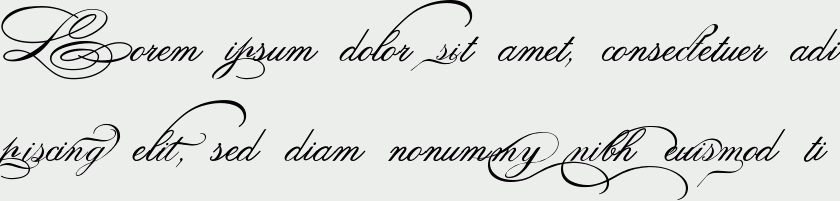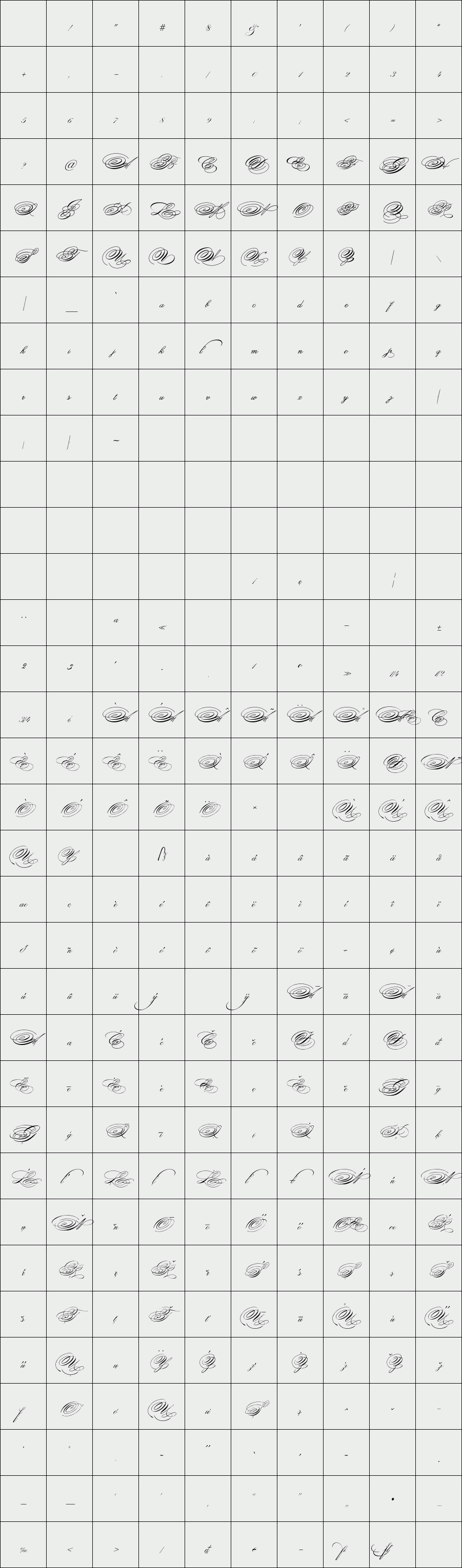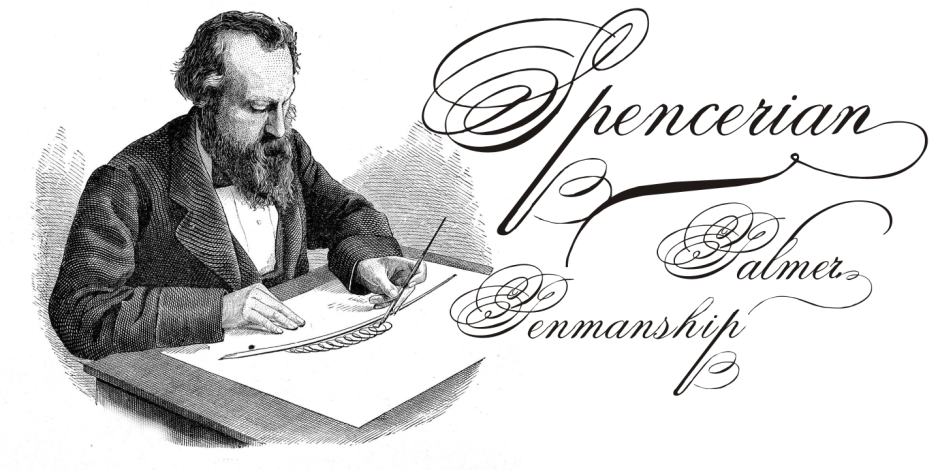
Spencerian Palmer Penmanship
/ Spencerian Palmer Penmanship PRO
The concepts of Spencerian Palmer Penmanship PRO come from the Palmer’s Penmanship guides and calligraphy manuals from XIX century.
This enhanced OpenType version has complete set in Latin alphabet with Central European, Vietnamese, Baltic and Turkish complete resources with all diacritic signs and punctuation marks plus extra characters belonging this ranges. Spencerian Palmer Penmanship PRO presents you with extra sets of stylistic alternates, swashes, ornaments, tails (to artistic increase any letter of this font) and plus over of 120 contextual alternates solutions - ligatures providing a lot of letterform variations that make this type family looks like a real handwriting on a page or the exact fancy text you wish.